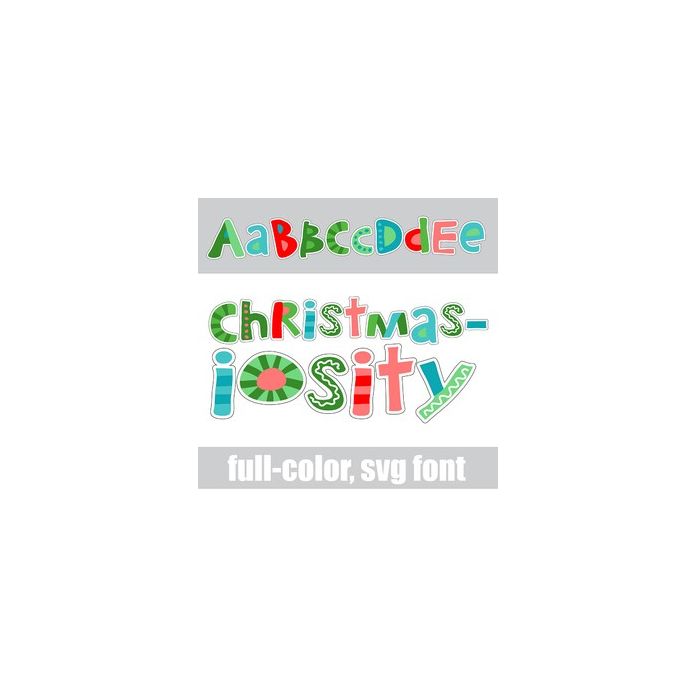
This whimsical, full-color font features holiday patterns in a Christmas color palette. There is an alt case w/ additional colors you can access through your system or Silhouette's glyph map.